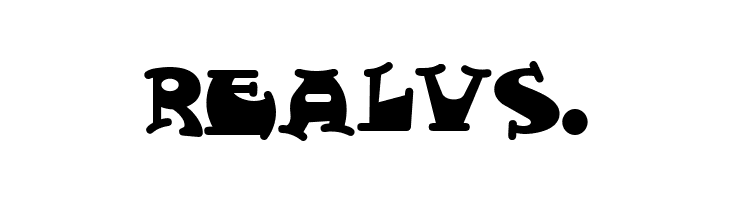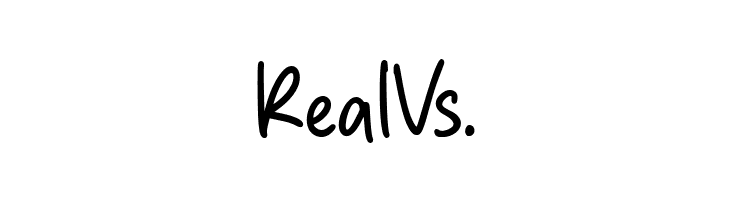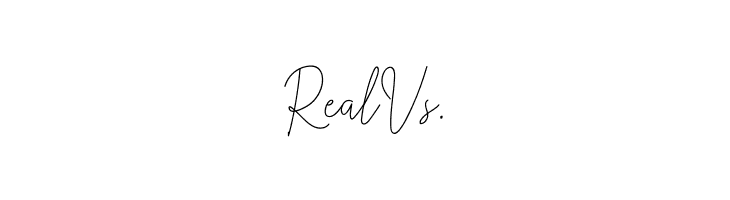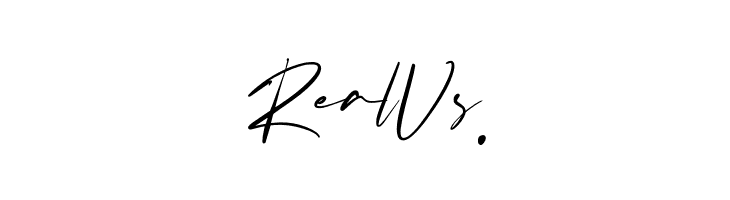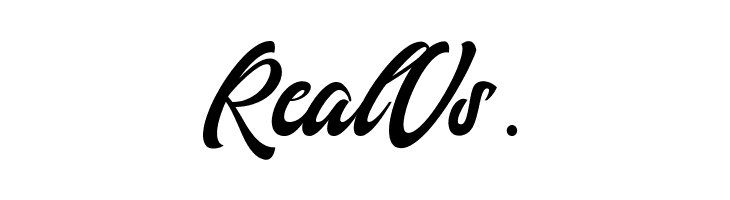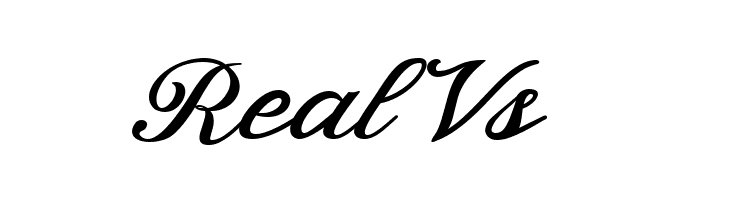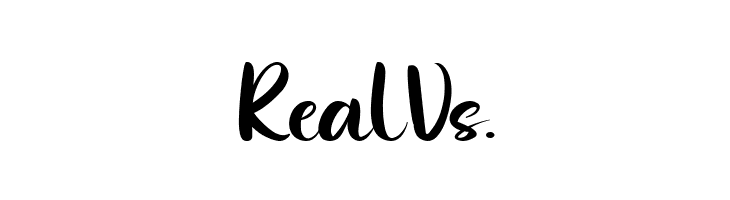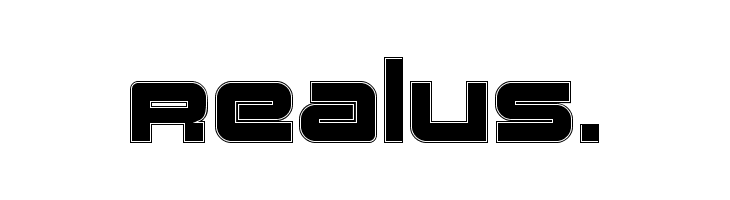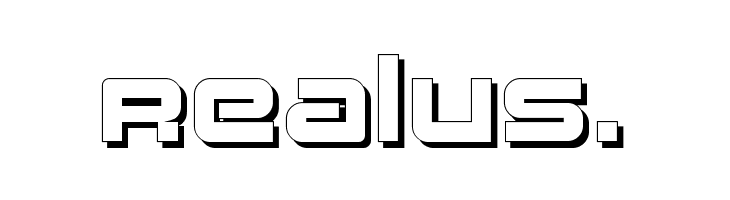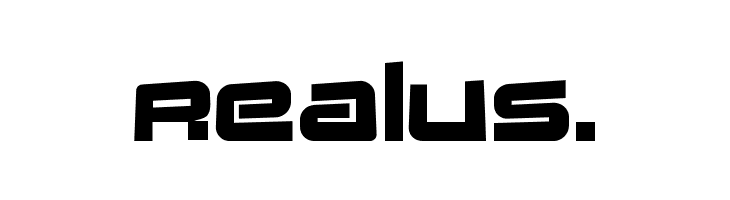
A bold, dynamic font with thick strokes and sharp angles, perfect for impactful designs.
A bold, geometric font with a modern and edgy style.
A bold, playful handwritten font with rounded edges and consistent weight.
A flowing, elegant script font with dynamic cursive strokes.
A playful, handwritten font with rounded, irregular letterforms.
A playful, handwritten font with rounded edges and consistent height.
A charming, handwritten script font with a rustic and homey feel.
A playful, casual handwritten font with smooth, flowing letterforms.
A bold, expressive handwritten font with dynamic strokes and a casual style.
A bold, expressive script font with flowing, cursive letterforms.
A playful and elegant script font with flowing, cursive letterforms.
A delicate, handwritten font with thin, elegant strokes and a fluid style.
A dynamic, cursive font with fluid, connected strokes and elegant style.
A dynamic, cursive script font with fluid strokes and high contrast.
A playful and artistic font with bold, rounded shapes and whimsical loops.
A bold, playful font with rounded edges and a cohesive, friendly appearance.
A bold, angular font with a dynamic slant and strong presence.
A bold, geometric font with a modern, outlined style.
A bold, rounded sans-serif font with a modern and approachable style.
A bold, geometric font with a shadow effect for a modern, three-dimensional look.
A bold, expressive script font with a handwritten feel.
An elegant and sophisticated script font with flowing curves and ornate details.
A bold, playful font with chunky, rounded letterforms and a whimsical style.
A bold, playful font with exaggerated serifs and whimsical character shapes.
A bold, playful font with exaggerated serifs and whimsical style.
A graceful script font with flowing, connected strokes and elegant flourishes.
A modern, geometric sans-serif font with bold, rounded characters.
A dynamic, edgy font with irregular, jagged strokes and a hand-drawn appearance.
A modern serif font with elegant, well-proportioned characters and balanced strokes.